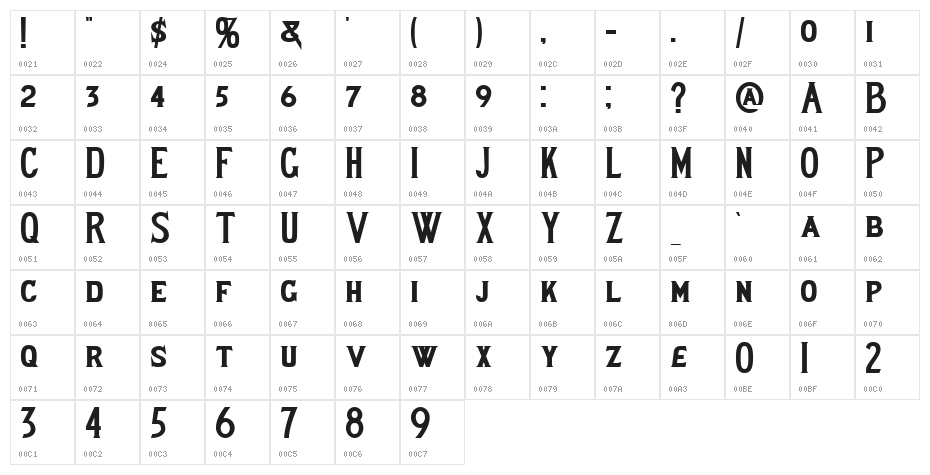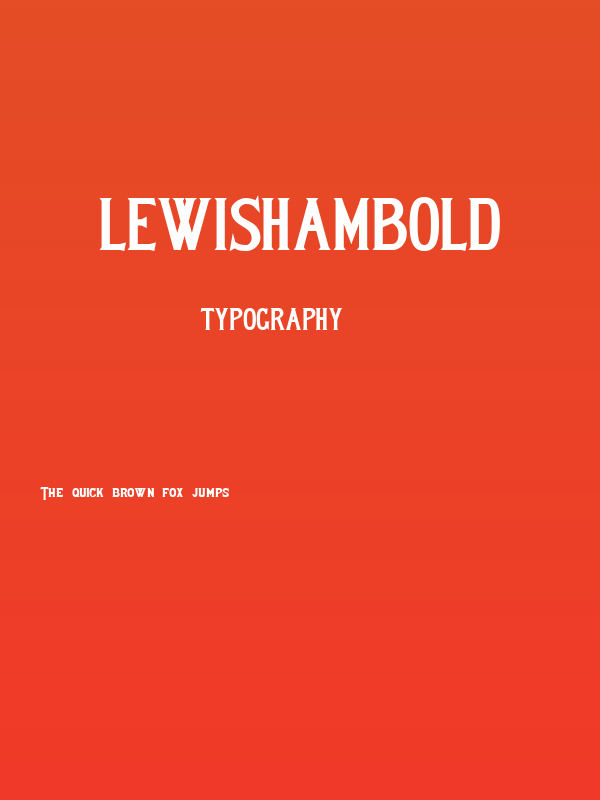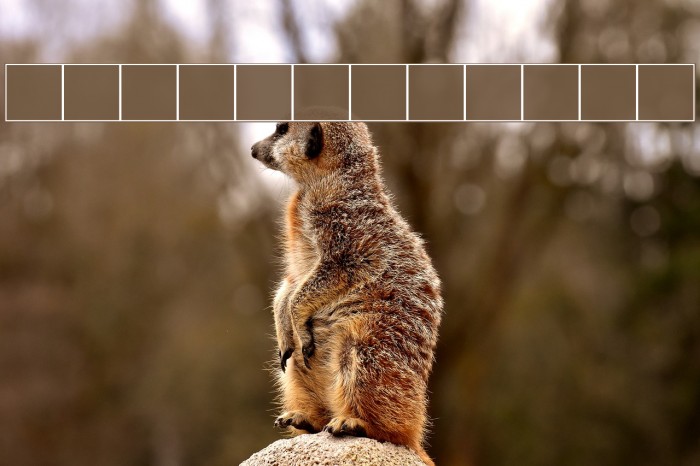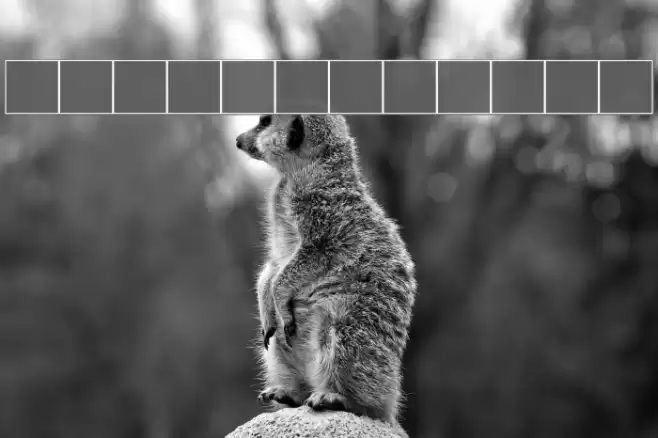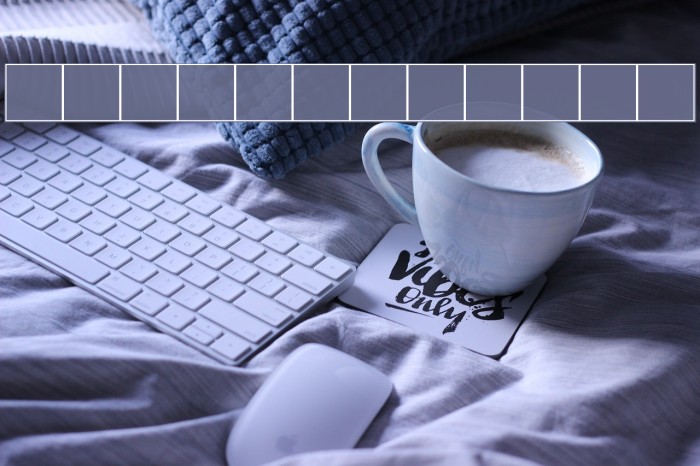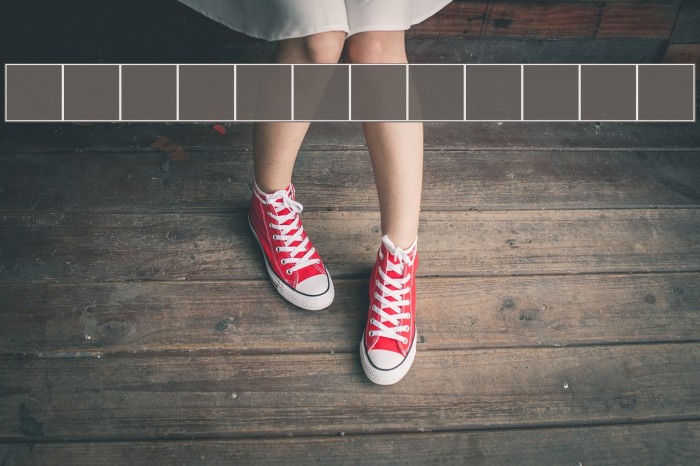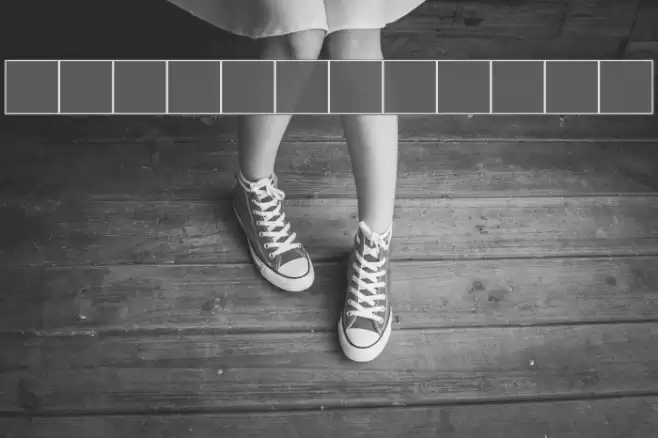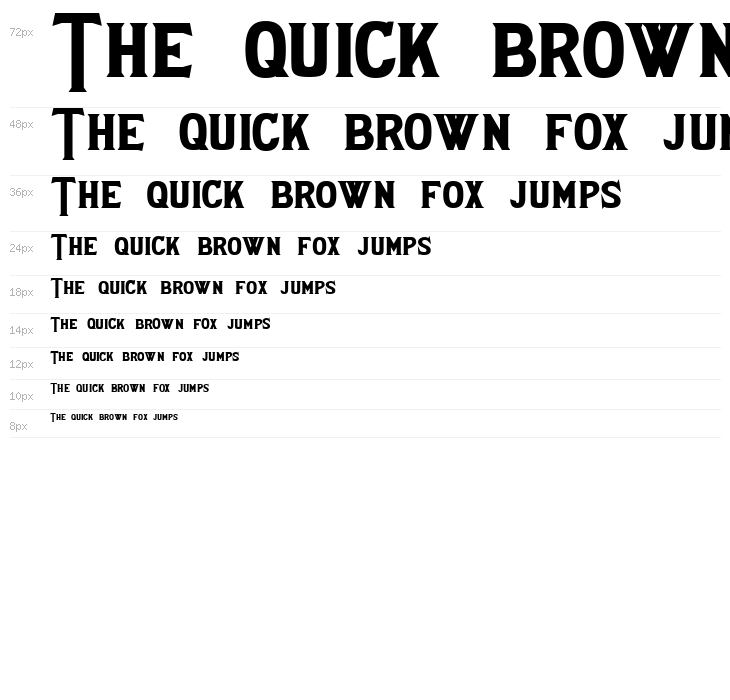
LewishamBold Font
LewishamBold Description
This font exhibits a bold and robust character, with thick strokes and a strong presence. The letters are evenly spaced, providing a clean and organized appearance. The uppercase and lowercase letters maintain a consistent style, with a modern and slightly geometric design. The numerals are clear and easy to read, matching the overall boldness of the font. Special characters are distinct and well-integrated, ensuring versatility in various applications.